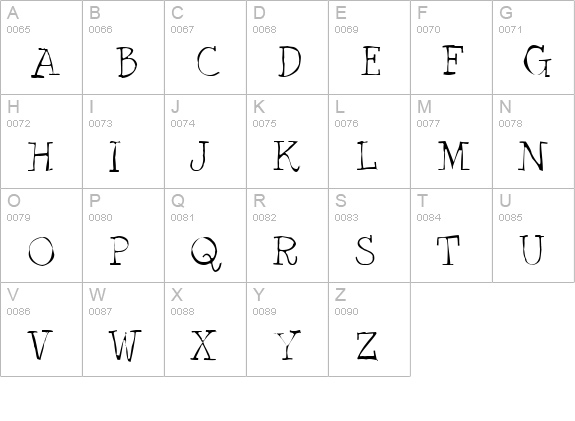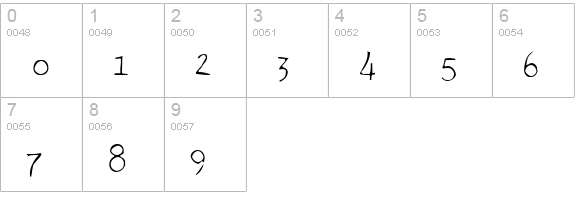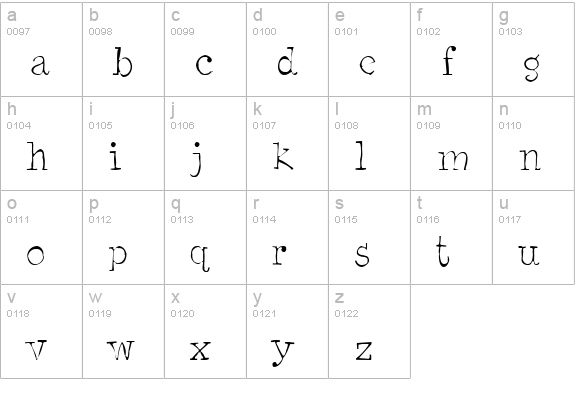
Minya Nouvelle Gaunt font is a sophisticated and elegant typeface that exudes a sense of refined charm and timeless beauty. With its slender and graceful letterforms, this font is perfect for adding a touch of sophistication to any design project. The delicate serifs and intricate details of Minya Nouvelle Gaunt font make it ideal for use in branding, editorial design, and luxury packaging. Its versatility allows it to shine in both print and digital applications, ensuring that your message is conveyed with elegance and style. But the best part is, Minya Nouvelle Gaunt font is completely free to download at FontsMarket.com! Whether you're a professional designer looking to elevate your work or a hobbyist seeking to enhance your projects, this font is a valuable addition to your typography collection. Don't miss out on the opportunity to enhance your designs with this exquisite typeface, available for free at FontsMarket.com.